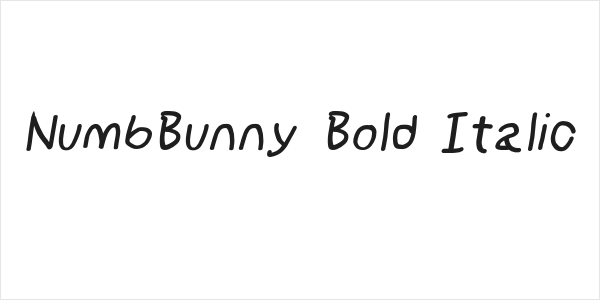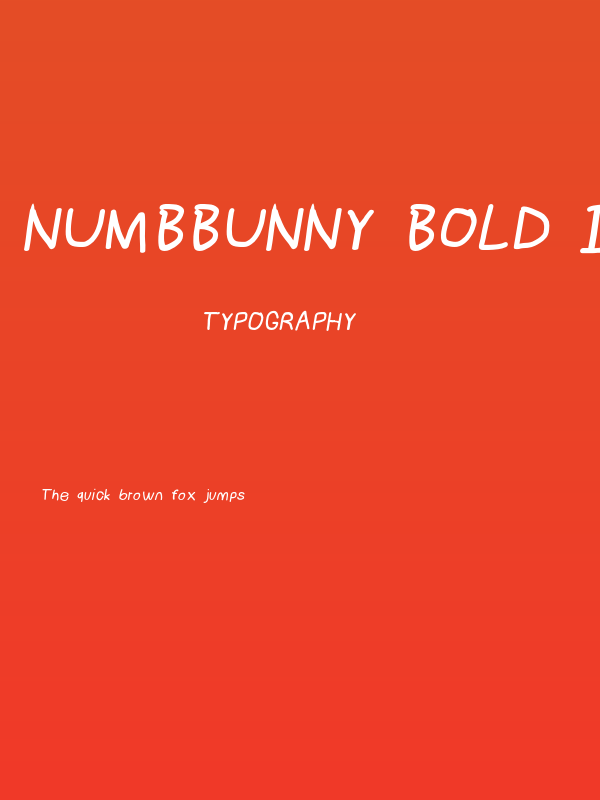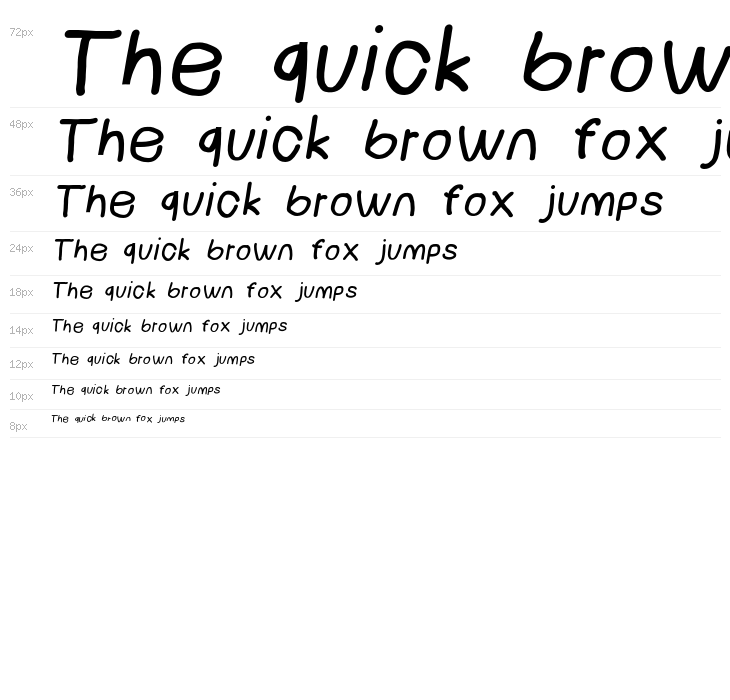
NumbBunny Bold Italic Font
NumbBunny Bold Italic Description
This playful and energetic font features a handwritten style with a bold and italicized appearance. The letters are slightly slanted, giving a dynamic and informal feel. The strokes are thick and rounded, providing a friendly and approachable look. The characters are well-spaced, ensuring readability while maintaining a casual vibe. The numerals and special characters follow the same style, making it versatile for various uses. Its unique charm makes it suitable for creative projects that require a personal touch.
| Proposed Projects | Ideal for children's books, playful branding, greeting cards, and creative posters. |